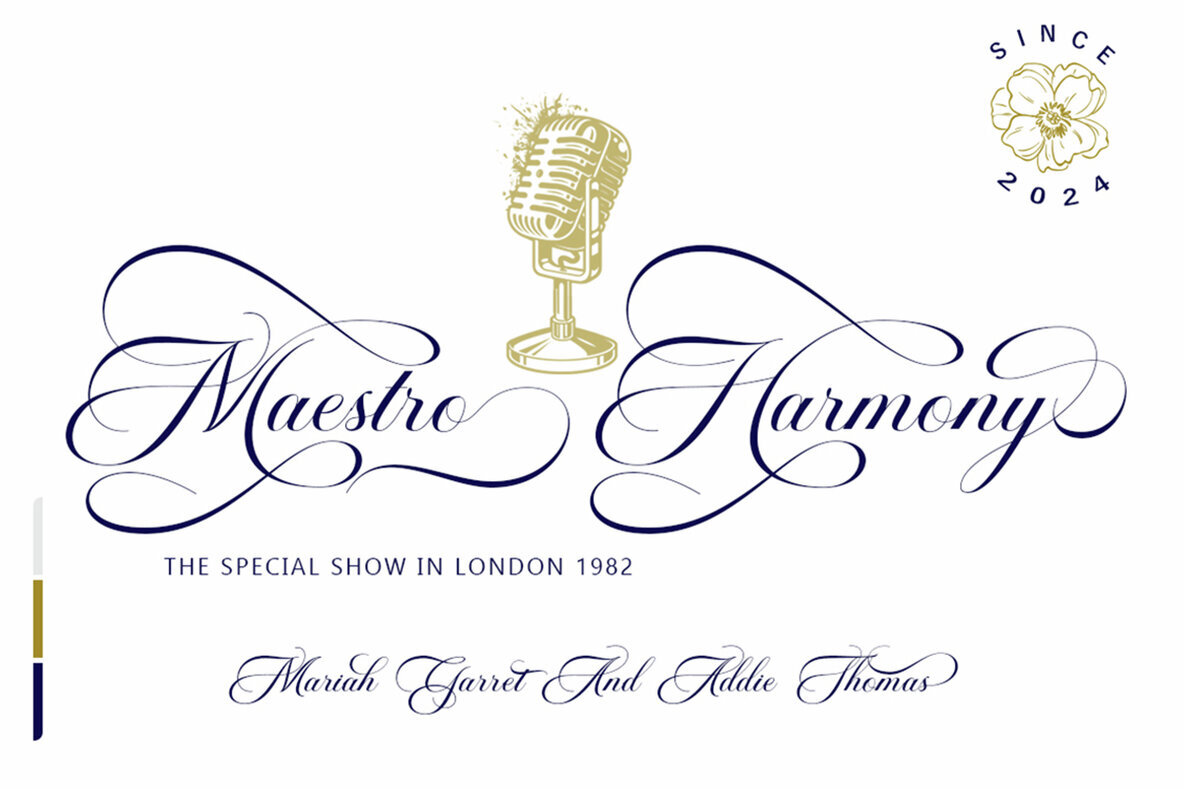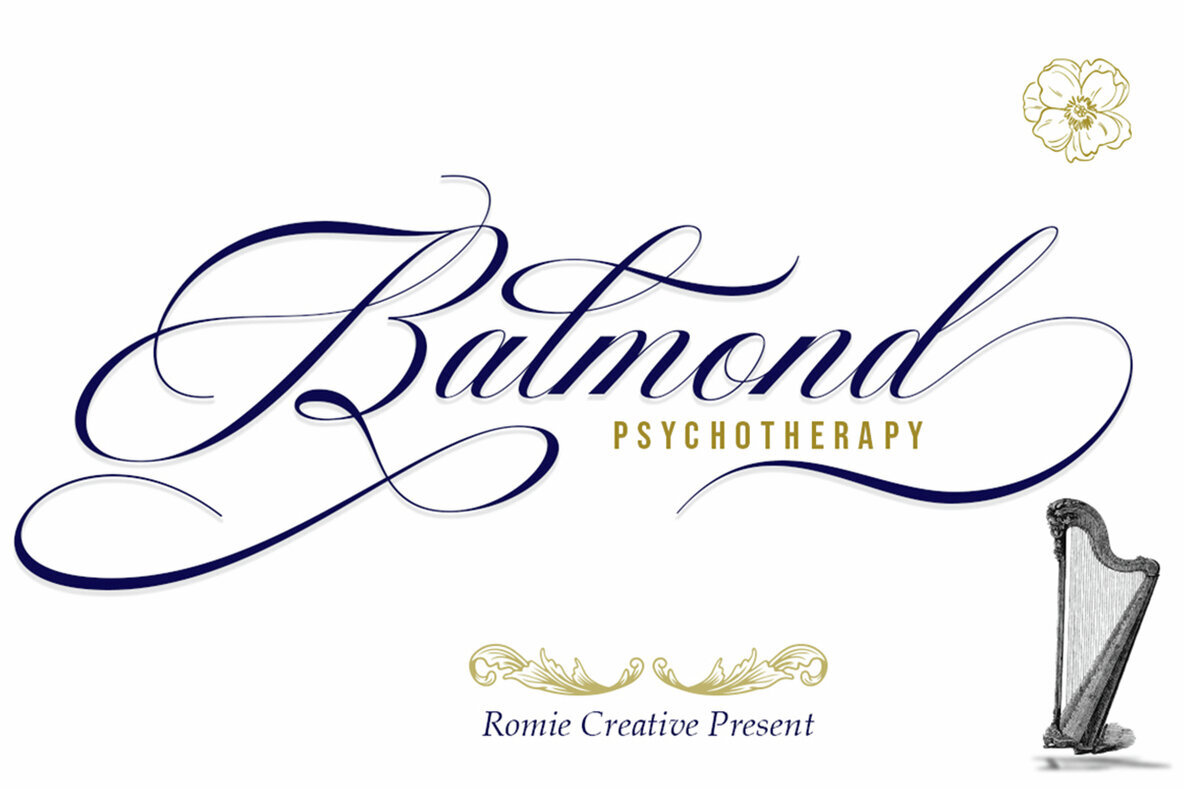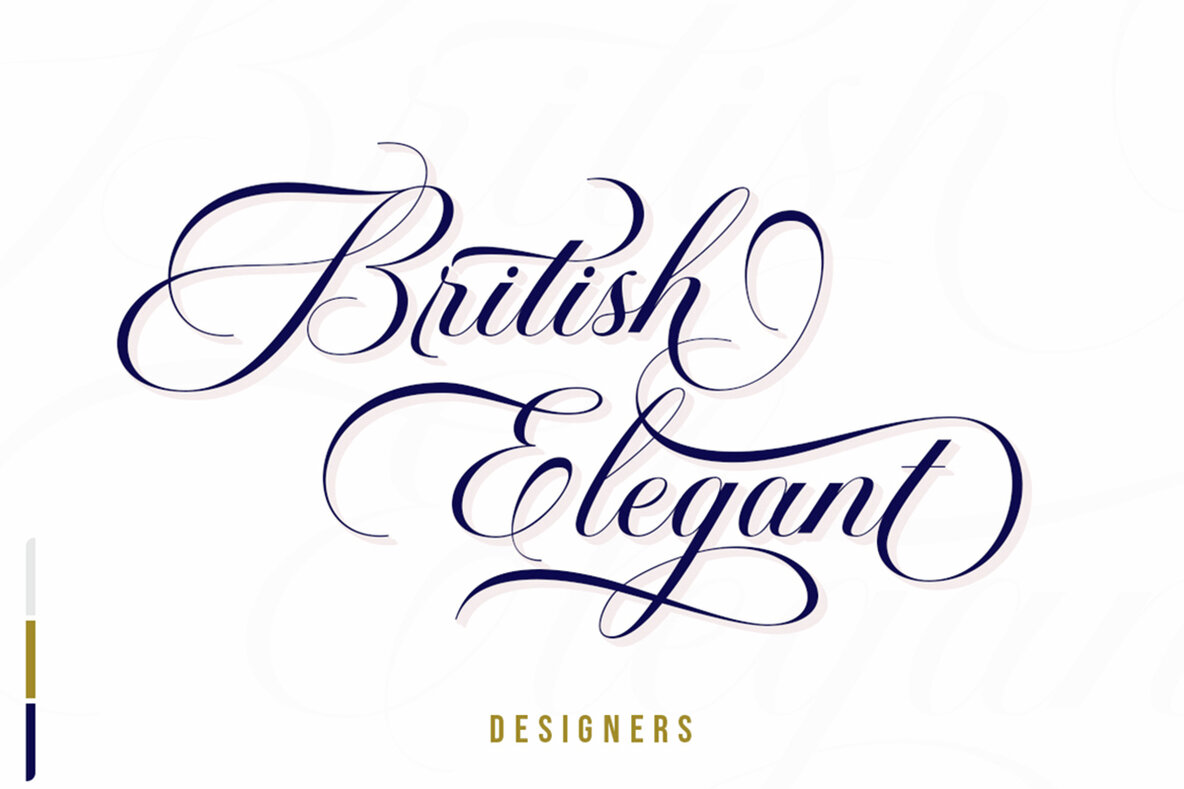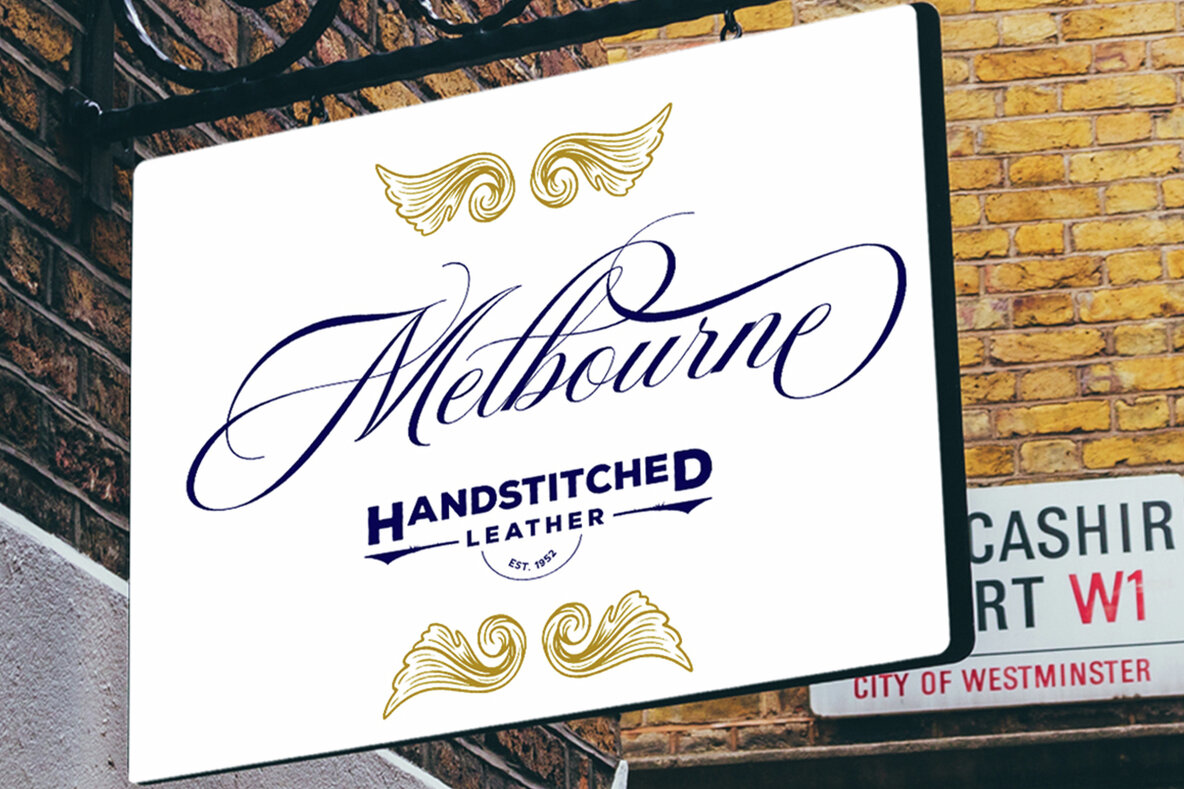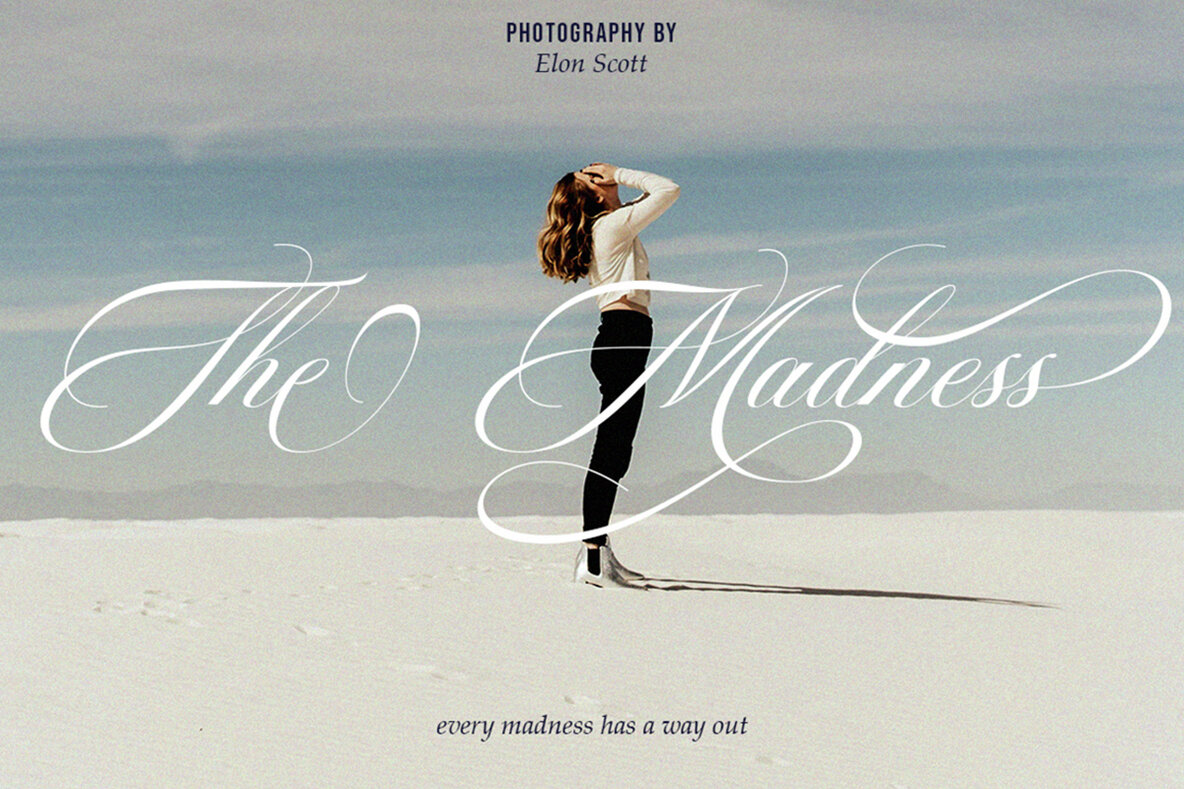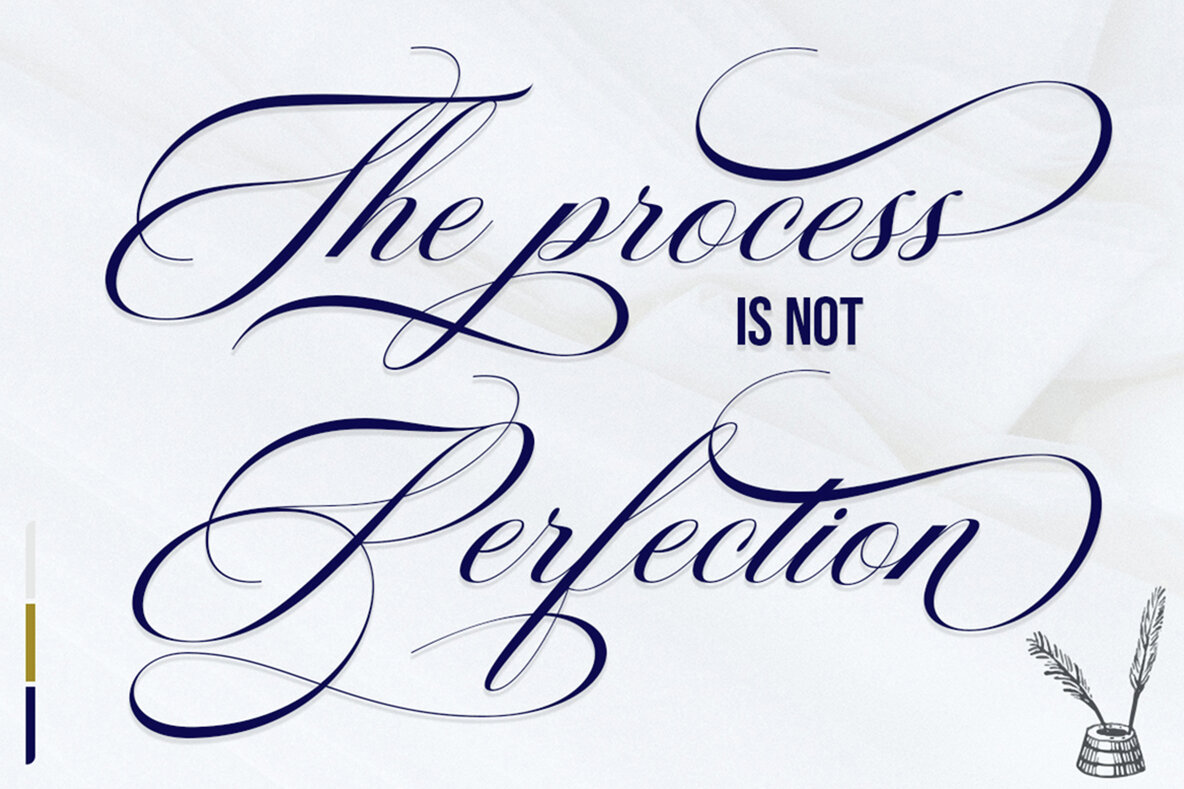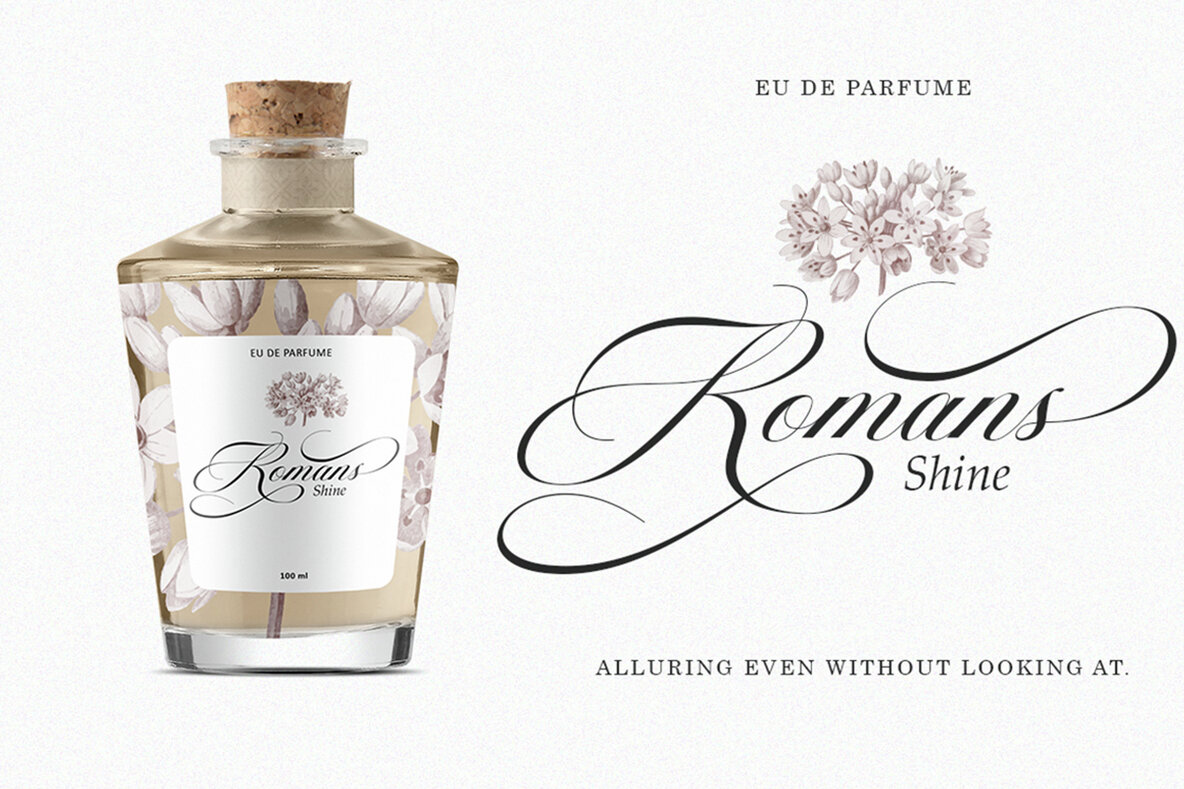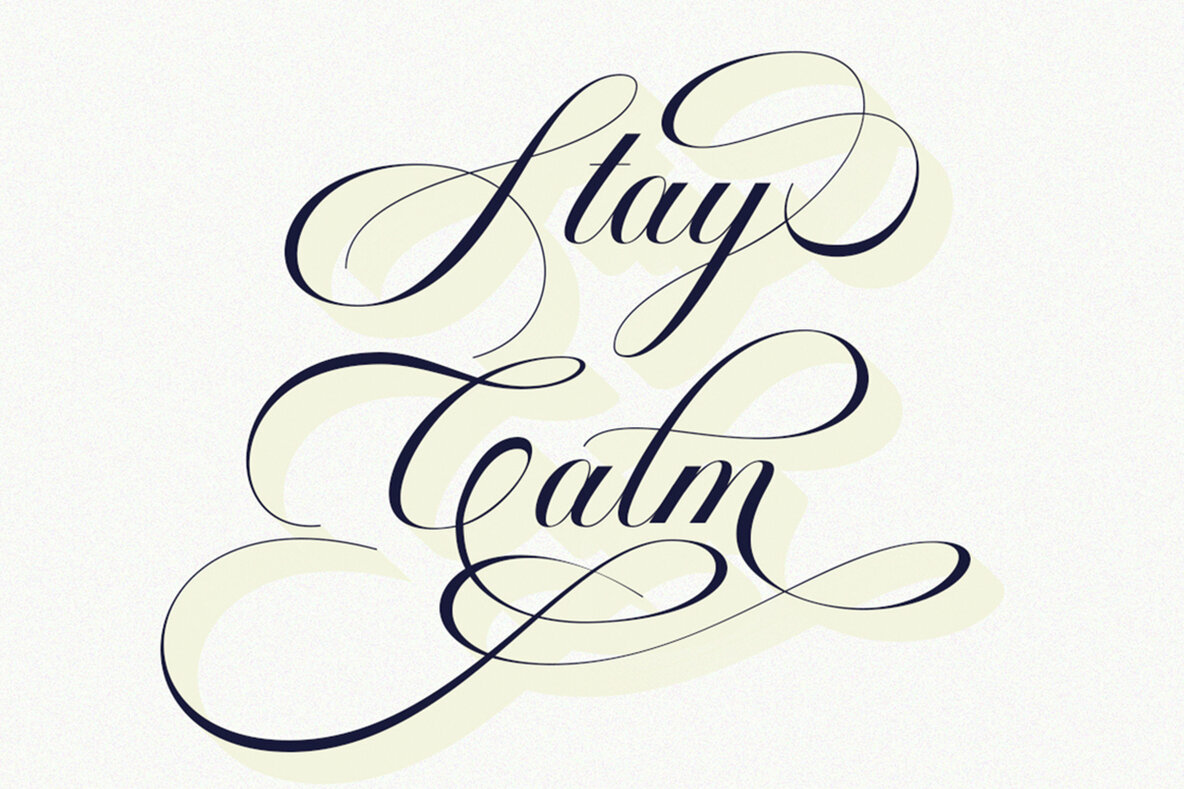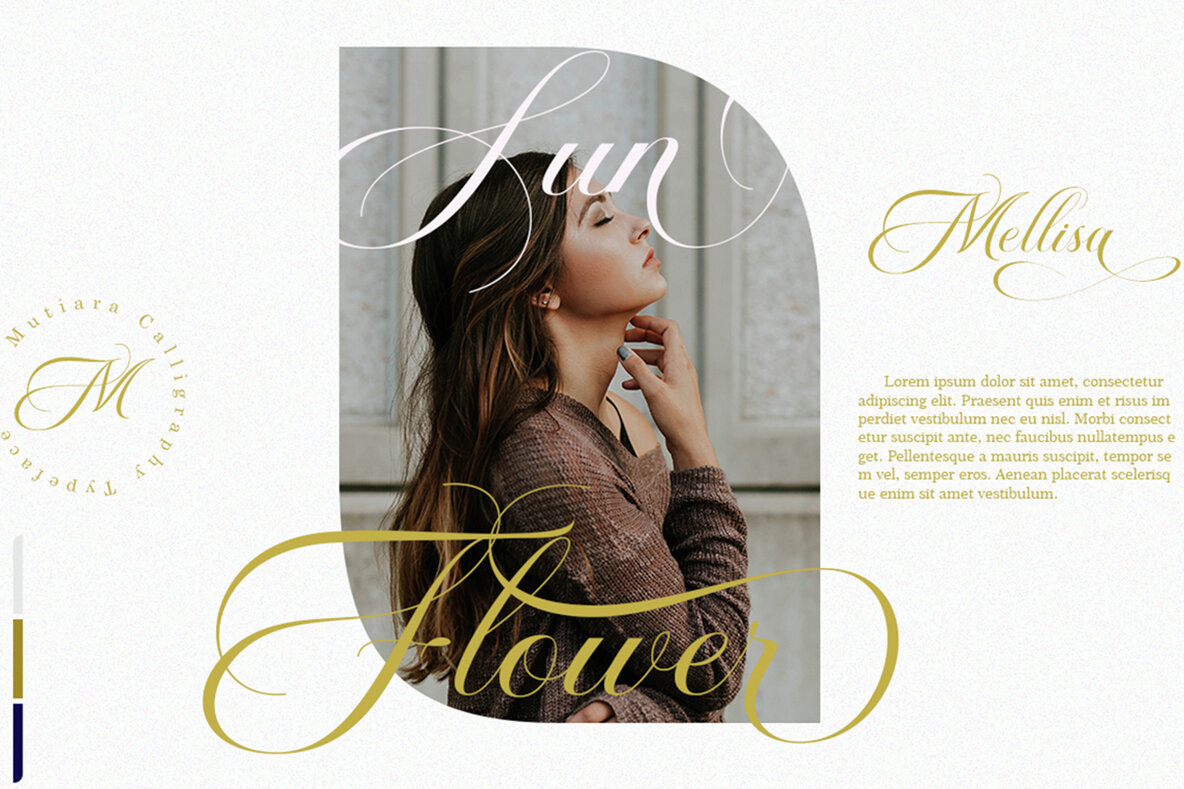
Andara Calligraphy Font
Andara Calligraphy Script Regular
Andara Calligraphy is a meticulously crafted font made with a copper plate stylus, offering a blend of elegance and versatility. This font is equipped with OpenType features, including PUA encoding, alternates, stylistic sets, ligatures, and swashes. Each lowercase glyph has a unique stylization, making it ideal for branding, wedding invitations, greeting cards, and quotes. Andara Calligraphy's artistic nuances bring a personalized touch to any design project.